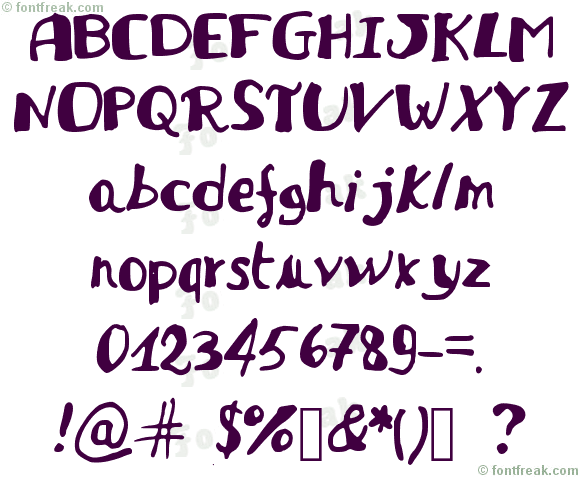
JDFabiola
JDFabiola, created by Jecko Development and available for free download, is a unique handwritten font that offers a charming, personal touch to any design project. This font stands out with its playful, organic strokes that mimic the fluidity of natural handwriting. JDFabiola features a moderate stroke weight, providing an inviting and approachable appearance while maintaining an easy readability that enhances its versatility.
Visually, JDFabiola exhibits a delightful contrast between thick and thin lines, contributing to its dynamic character. The letters are generously spaced, allowing for clarity and a light, airy feel in text displays. Decorative elements, like slight flourishes on certain letters, add a whimsical flair that enhances its handwritten aesthetic. This quality makes JDFabiola an ideal choice for projects requiring a personal touch, such as wedding invitations that seek to convey warmth and intimacy. Additionally, the font is perfect for crafting engaging restaurant menus that highlight a friendly atmosphere or creating eye-catching movie posters that require a unique, artistic twist.
Targeted towards graphic designers, small business owners, and content creators, JDFabiola offers a versatile solution for those looking to infuse creativity into their work. Its informal yet stylish appearance makes it suitable for branding, social media graphics, and promotional materials that want to connect with audiences on a personal level.
In summary, JDFabiola stands out for its ability to blend the charm of handwritten text with legibility and versatility. Whether you're designing a heartfelt invitation or a lively advertisement, the JDFabiola font free download provides an excellent option for adding a distinctive touch to your projects.